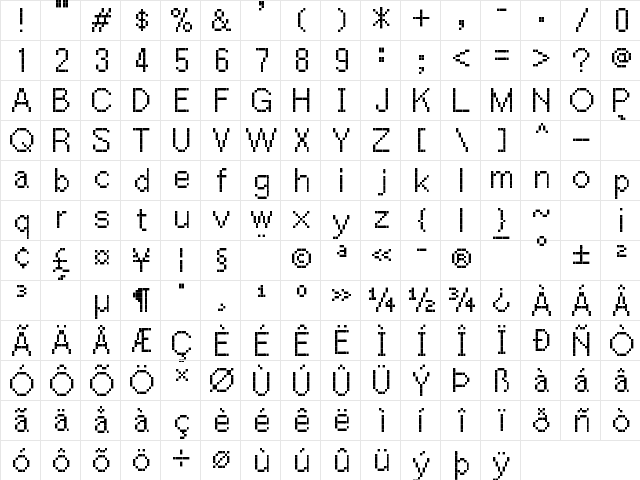
PW Extended Regular
Design Context for PW Extended Typeface
PW Extended takes a measured approach to typography — its balanced proportions and neutral character make it a reliable workhorse for both digital and print work.